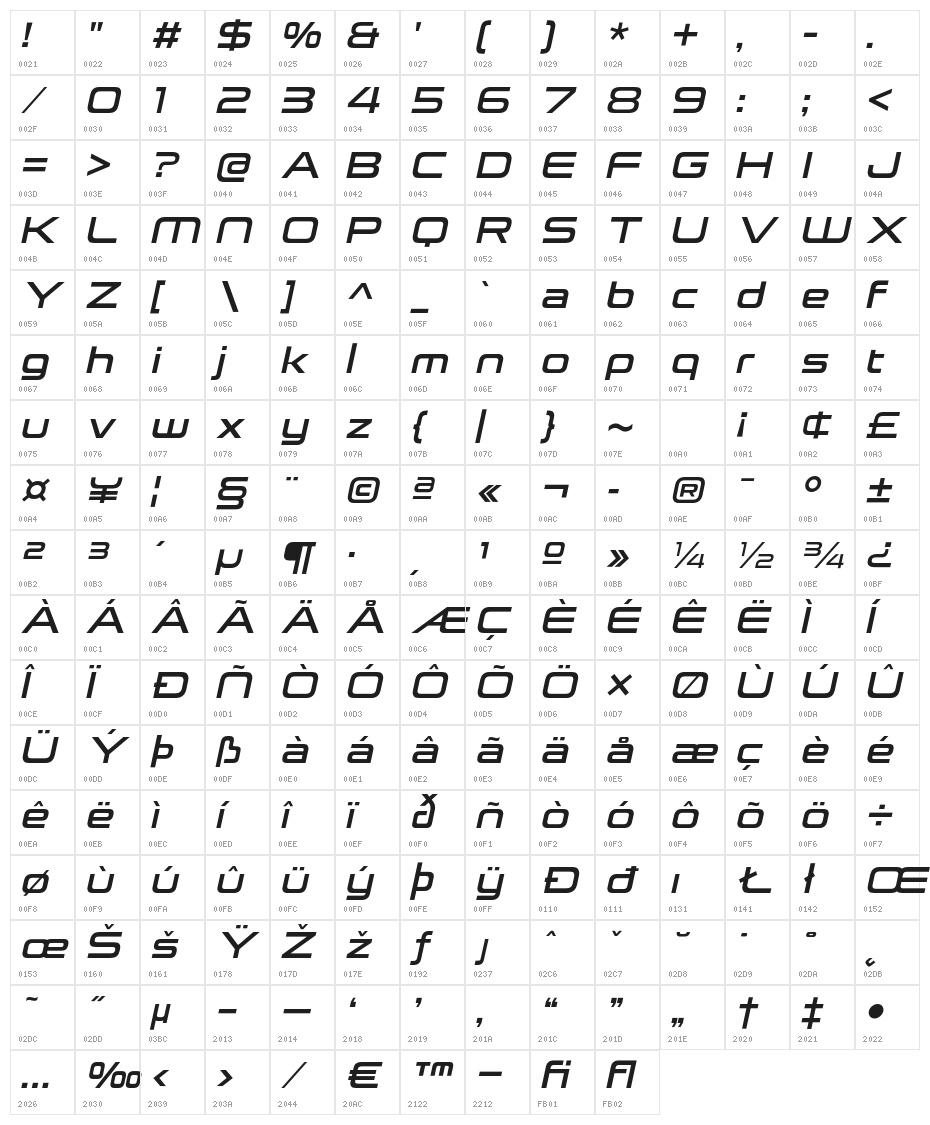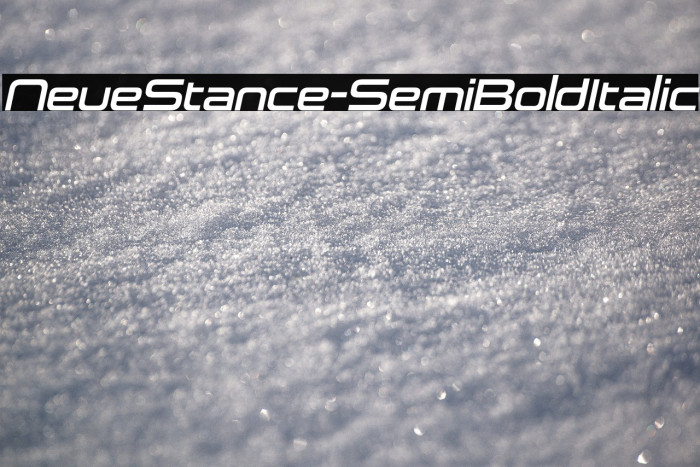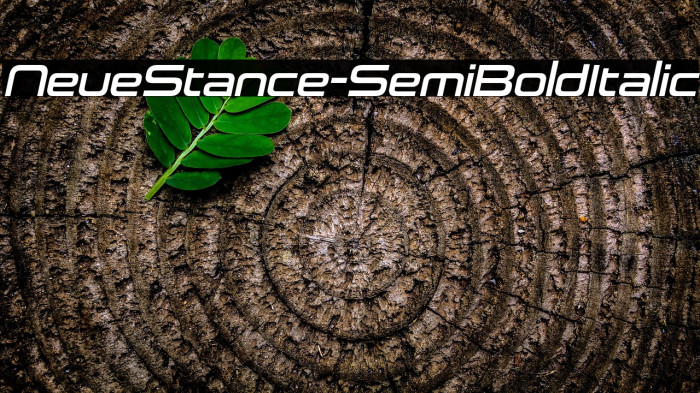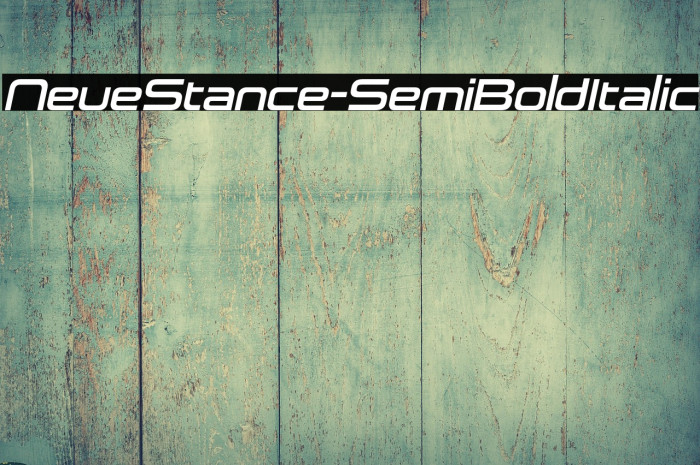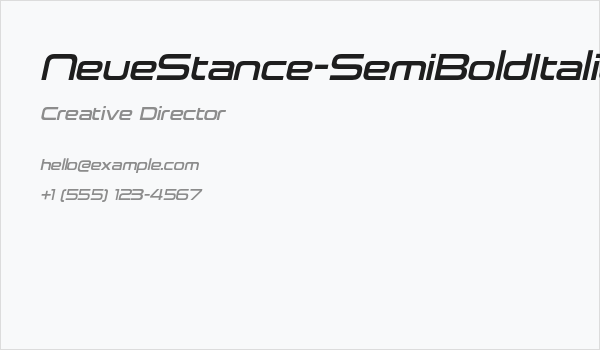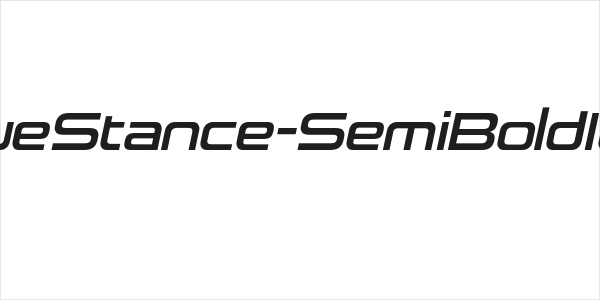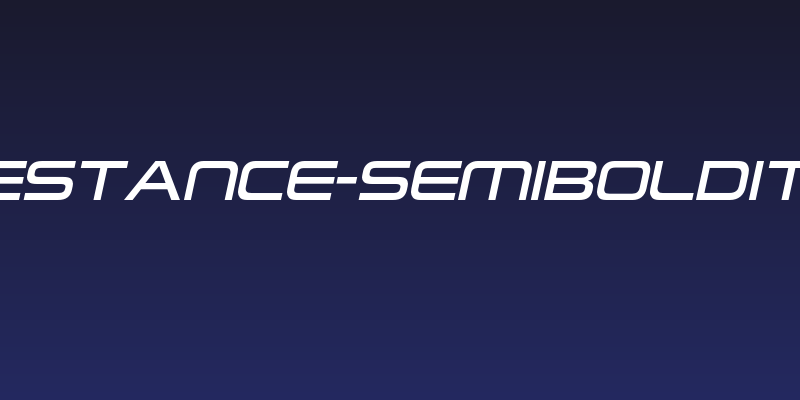
NeueStance-SemiBoldItalic Font
NeueStance-SemiBoldItalic Description
This font exhibits a sleek and modern design with a semi-bold weight and italic style. The characters are slightly condensed, giving it a compact and efficient appearance. The strokes are smooth and consistent, with medium contrast, enhancing readability while maintaining a stylish look. The overall design is clean and contemporary, suitable for a variety of digital and print applications. The special characters and numerals are well-integrated, maintaining the font's cohesive aesthetic.
| Proposed Projects | Ideal for branding projects, modern website headers, tech-related designs, and stylish print materials. |